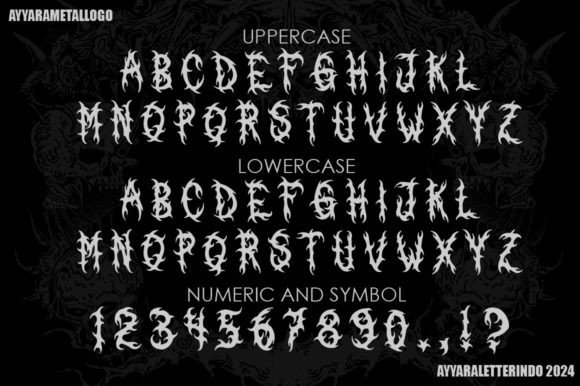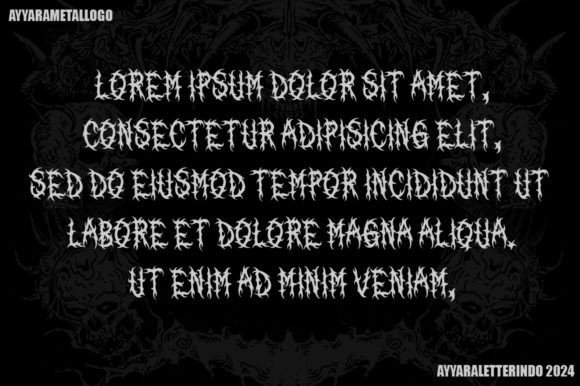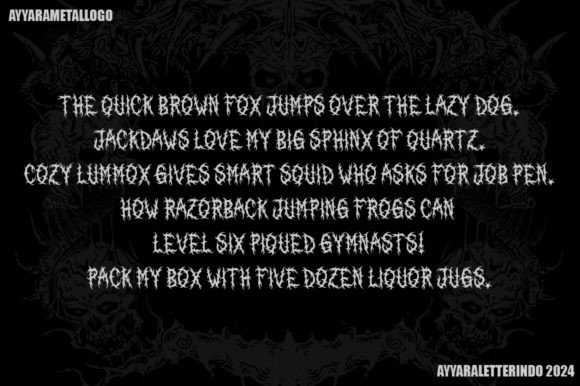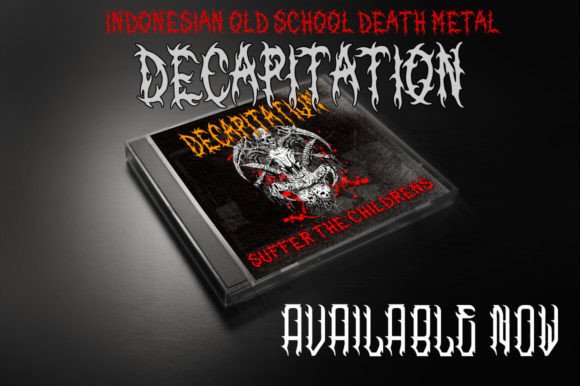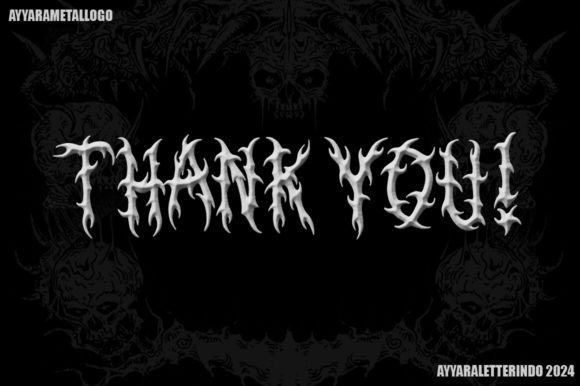
Unleash the Power of Decapitation Font: Elevate Your Metal Brand or Band Logo
In the realm of metal music and extreme branding, typography plays a crucial role in conveying the essence and attitude of a band or brand. For those seeking to make a bold statement, the Decapitation Font emerges as a game-changer. This metal font, inspired by the raw energy of decapitation, is specifically designed for logos, branding, and metal band names, offering a unique black letter style that commands attention.
What is Decapitation Font?
The Decapitation Font is a distinctive typeface that embodies the aggressive and powerful spirit of metal music. Its design is characterized by sharp lines, intricate details, and a predominantly black aesthetic, making it an ideal choice for those looking to create a striking visual identity. Whether you’re a metal band aiming to rebrand or a crafty designer seeking the perfect font for a client’s project, Decapitation Font offers a versatile solution.
Key Features of Decapitation Font
- Metallic Aesthetic: The font boasts a metallic look that is perfect for bands and brands in the metal genre.
- Black Letter Style: Its unique black letter design sets it apart from more traditional fonts, offering a bold and mysterious appeal.
- Versatility: Decapitation Font can be used for a variety of applications, from band logos and album covers to merchandise and promotional materials.
- Ease of Use: Designers can easily integrate this font into their projects, combining it with black metal or death metal ornaments for a cohesive look.
Applications of Decapitation Font
The Decapitation Font is not just limited to metal bands; its applications extend to various creative projects that demand a bold and edgy typography. Some of the key applications include:
- Band Logos and Branding: Create a memorable logo for your metal band that stands out in the music scene.
- Merchandise Design: From t-shirts to posters, this font can be used to create eye-catching merchandise that appeals to metal fans.
- Album Covers and Posters: Add a touch of aggression and power to your album covers and promotional posters.
- Social Media Graphics: Elevate your social media presence with bold and engaging graphics that reflect your brand’s personality.
Tips for Using Decapitation Font
To maximize the impact of Decapitation Font, consider the following tips:
- Combine with Metal Ornaments: Enhance your design by combining the font with black metal or death metal ornaments.
- Experiment with Colors: While the font is predominantly black, experimenting with metallic colors can add depth to your design.
- Keep it Simple: Avoid overcrowding your design. The bold nature of the font makes it stand out, even on its own.
The Decapitation Font is a powerful tool for designers and metal enthusiasts looking to create a bold and memorable brand or band logo. Its unique design, versatility, and ease of use make it an excellent choice for various creative projects. By incorporating Decapitation Font into your design arsenal, you’re one step closer to creating visually striking and impactful designs that resonate with your audience.
Whether you’re a seasoned designer or a DIY enthusiast, the Decapitation Font invites you to push the boundaries of typography and design. Embrace the power of decapitation and let your creativity shine with this exceptional metal font.